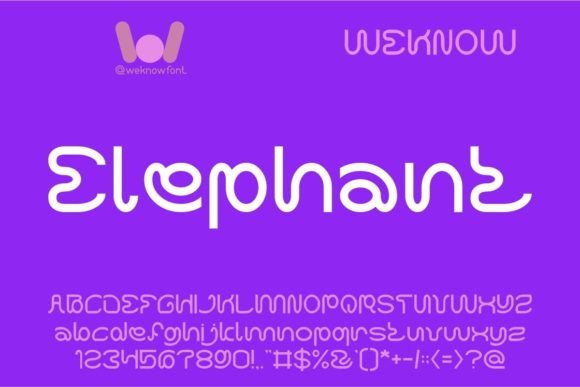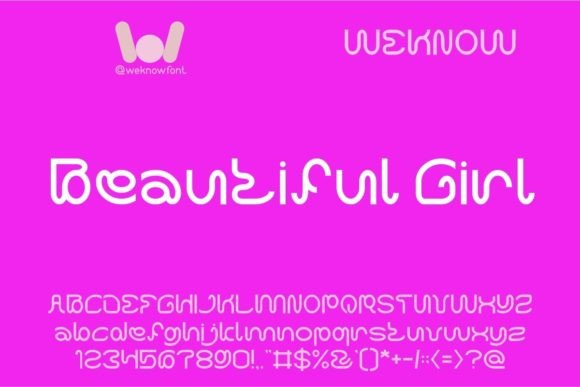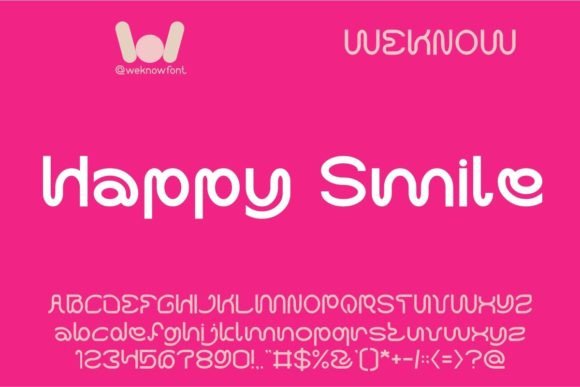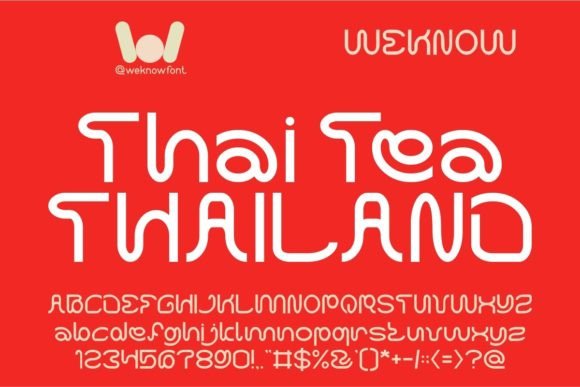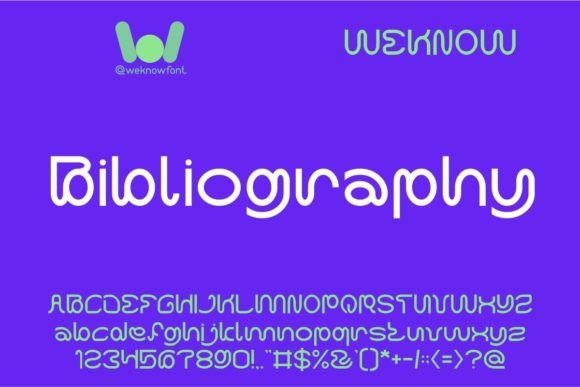
Bibliography Font: Elevate Your Designs with a Touch of Sophistication
Bibliography is a stunning display font that can instantly elevate your designs with its unique blend of elegance and sophistication. Whether you’re a designer, craftsperson, or DIY enthusiast, this versatile font is perfect for a wide range of creative projects. In this article, we’ll explore the features and benefits of Bibliography Font, and show you how to make the most of this incredible typographic tool.
What is Bibliography Font?
Bibliography Font is a carefully crafted display font designed to make a statement. Its distinctive style makes it ideal for use in logos, logotypes, headlines, and other applications where you want to grab attention and convey a sense of sophistication. With its elegant lines and refined aesthetic, Bibliography Font is perfect for projects that require a touch of luxury and refinement.
Key Features of Bibliography Font
- Unique and distinctive style: Bibliography Font boasts a one-of-a-kind design that will set your projects apart from the crowd.
- Highly versatile: Use Bibliography Font for logos, branding, headlines, posters, magazines, books, and more.
- Elegant and sophisticated: This font exudes refinement and luxury, making it perfect for high-end projects.
- Easy to read: Despite its ornate style, Bibliography Font remains clear and legible, even at smaller sizes.
Use Cases for Bibliography Font
Bibliography Font is an incredibly versatile typographic tool, suitable for a wide range of design projects. Here are some ideas to get you started:
- Logo design: Create a stunning logo for your business or brand with Bibliography Font.
- Branding and identity: Use Bibliography Font to develop a cohesive visual identity for your company or product.
- Apparel industry: Add a touch of sophistication to your fashion designs with Bibliography Font.
- Posters and flyers: Grab attention with Bibliography Font in your promotional materials.
- Magazines and books: Use Bibliography Font to add a touch of elegance to your publications.
- Digital media: Incorporate Bibliography Font into your YouTube videos, Instagram posts, and website designs.
Tips for Using Bibliography Font
To get the most out of Bibliography Font, follow these expert tips:
- Use it sparingly: Bibliography Font is a statement font, so use it judiciously to avoid overwhelming your design.
- Pair it with complementary fonts: Combine Bibliography Font with simpler fonts to create visual interest and hierarchy.
- Experiment with colors and textures: Add depth and dimension to your design with creative color and texture choices.
Bibliography Font is a game-changing typographic tool that can elevate your designs to new heights. With its unique style, versatility, and elegance, this font is perfect for designers, craftspersons, and DIY enthusiasts alike. Whether you’re working on a logo, branding project, or creative design endeavor, Bibliography Font is sure to make a lasting impression.